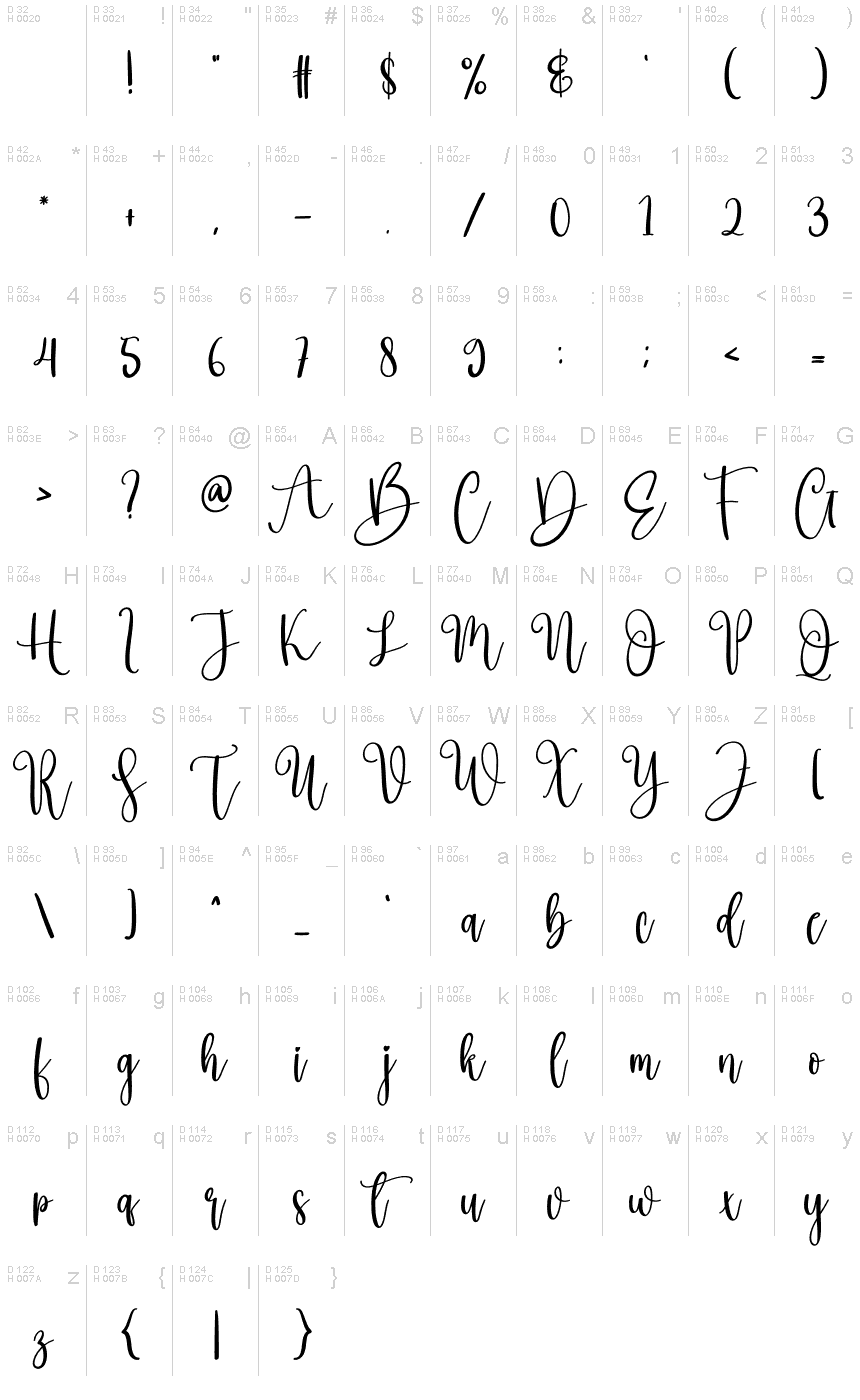
Freshtea
Freshtea, a charming creation by Scratchones, is an exquisite handwritten font that exudes elegance and grace. With its semi-light weight, it strikes the perfect balance between delicacy and legibility. The semi-condensed width adds a touch of sophistication to any design project.
Ideal for modern calligraphy, wedding invitations, or branding materials, Freshtea brings a fresh and unique aesthetic to your creations. Its flowing curves and gentle strokes capture the essence of handwritten beauty. Whether you're crafting personalized stationery or designing logos for boutique brands, this font will surely make your projects stand out with its effortless charm and timeless appeal.